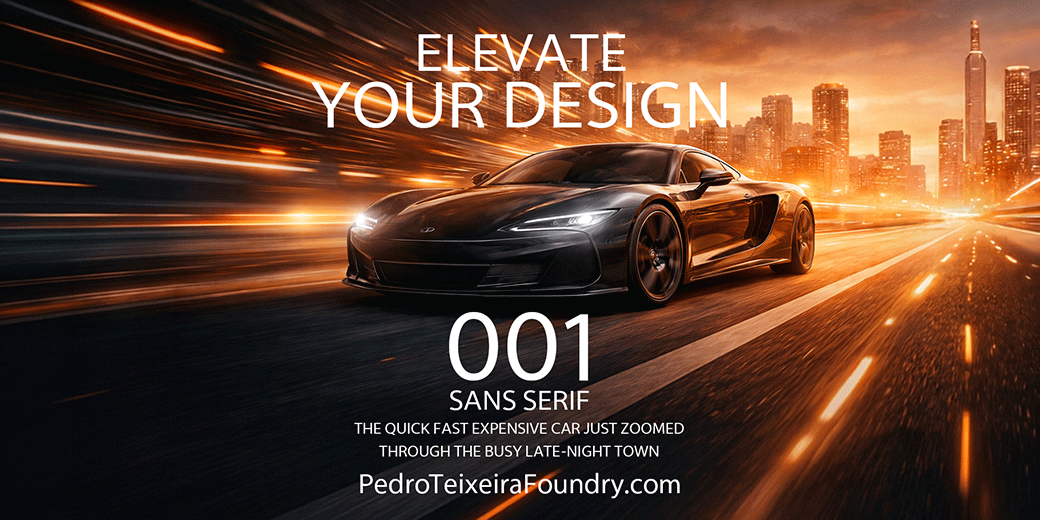
Download 001 Sans Serif DEMO, a verified demo sans serif display font by Pedro Teixeira Foundry for team logos, jerseys, posters and sports branding.
001 Sans Serif DEMO is a display sans serif by Pedro Teixeira Foundry, built for short text that needs a clean, direct and structured voice. Its letterforms can be tested in team names, sports graphics, music artwork, posters and science-fiction or technology-themed headings. The restrained construction also makes it useful for checking compact logos and minimal title treatments.